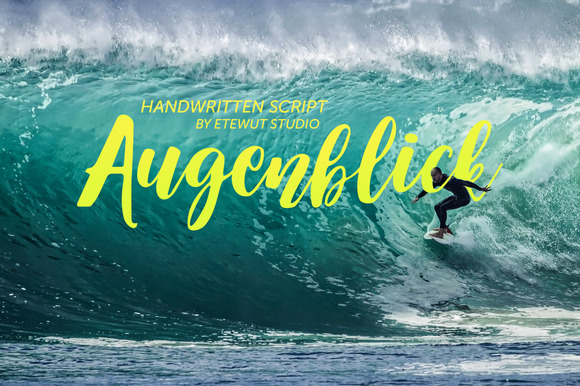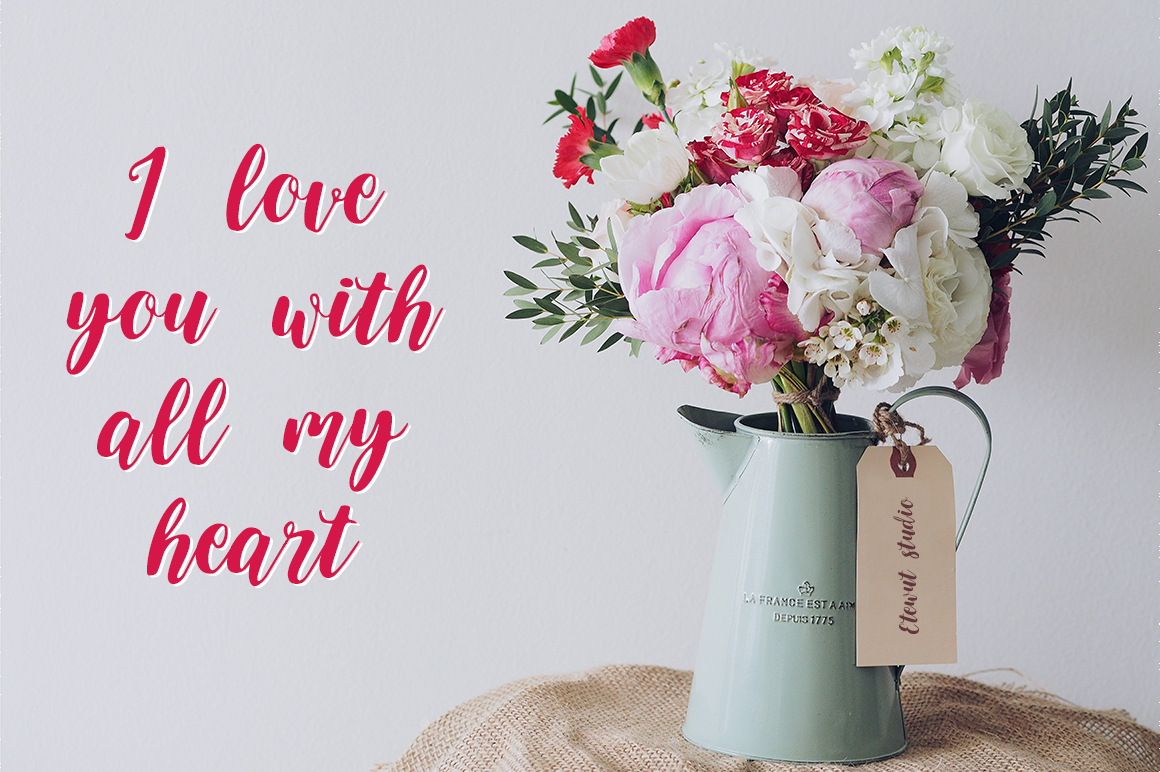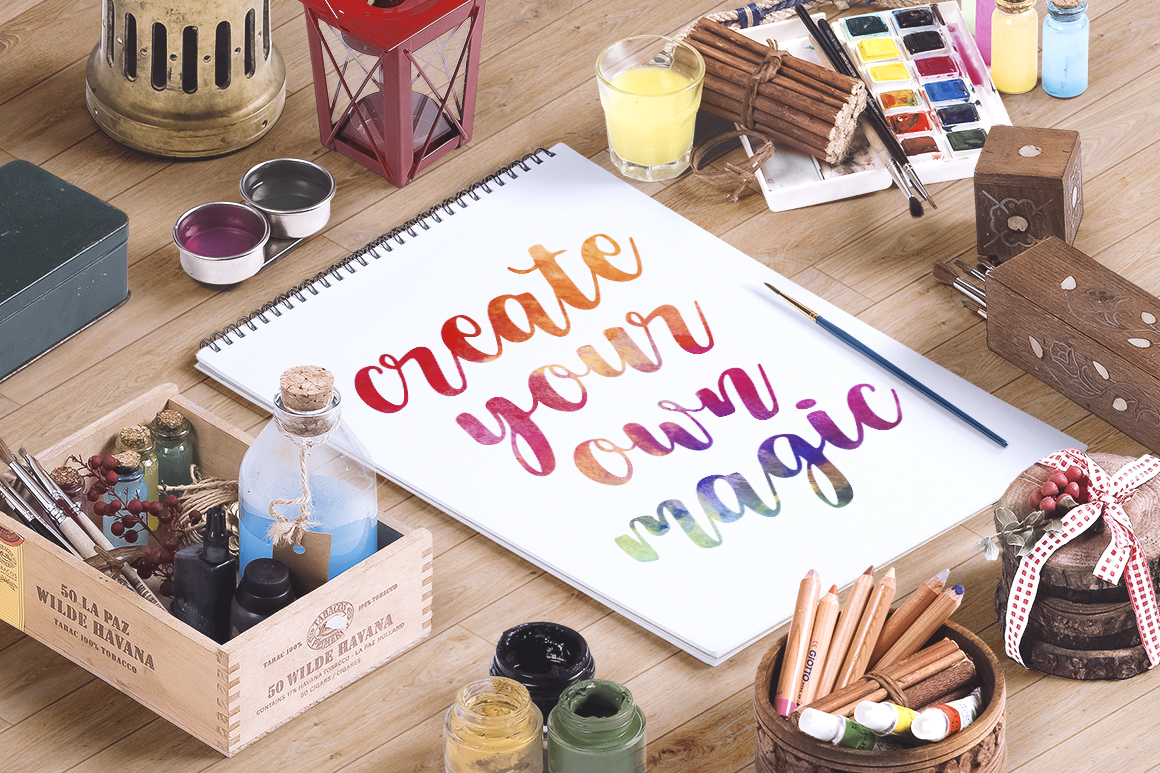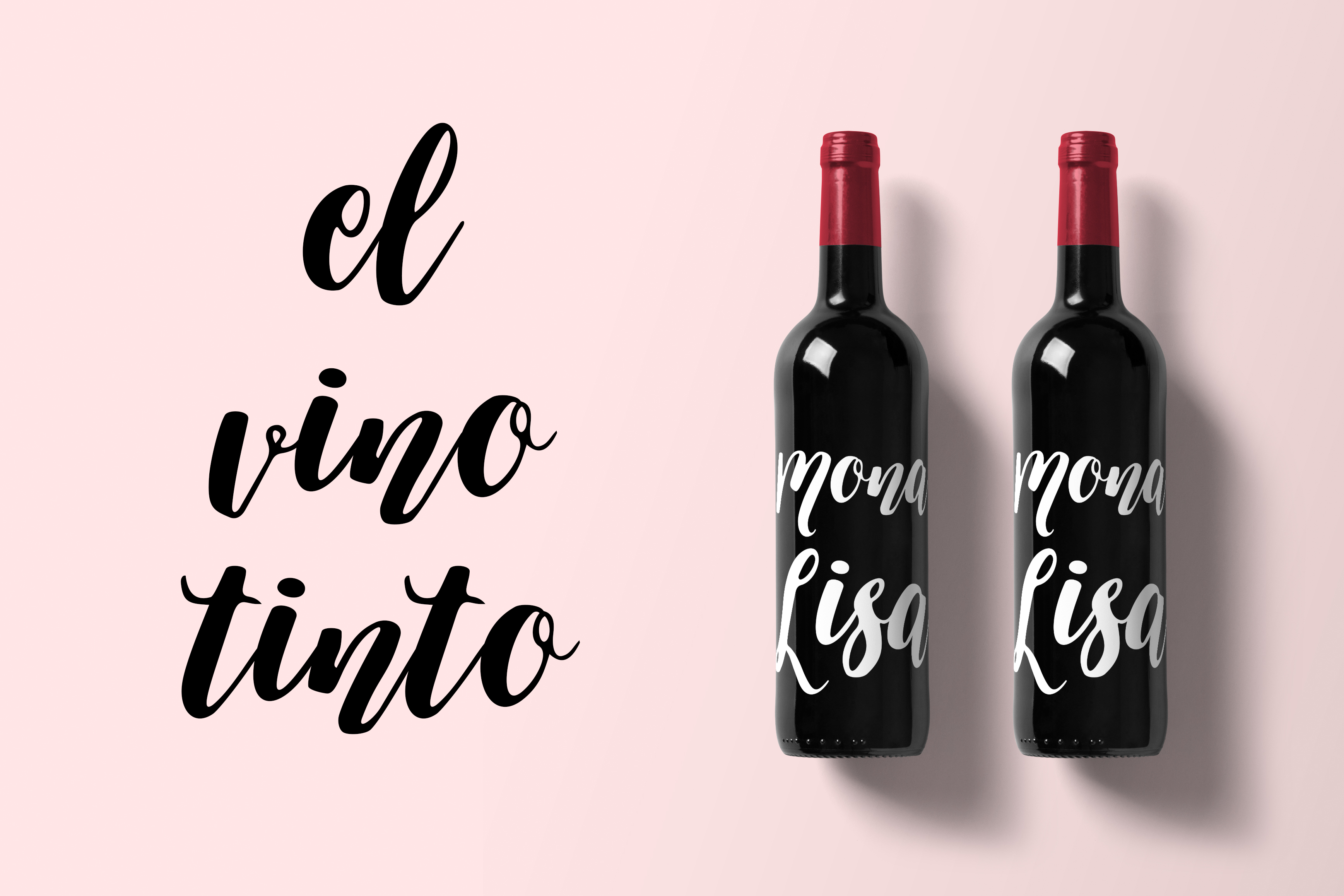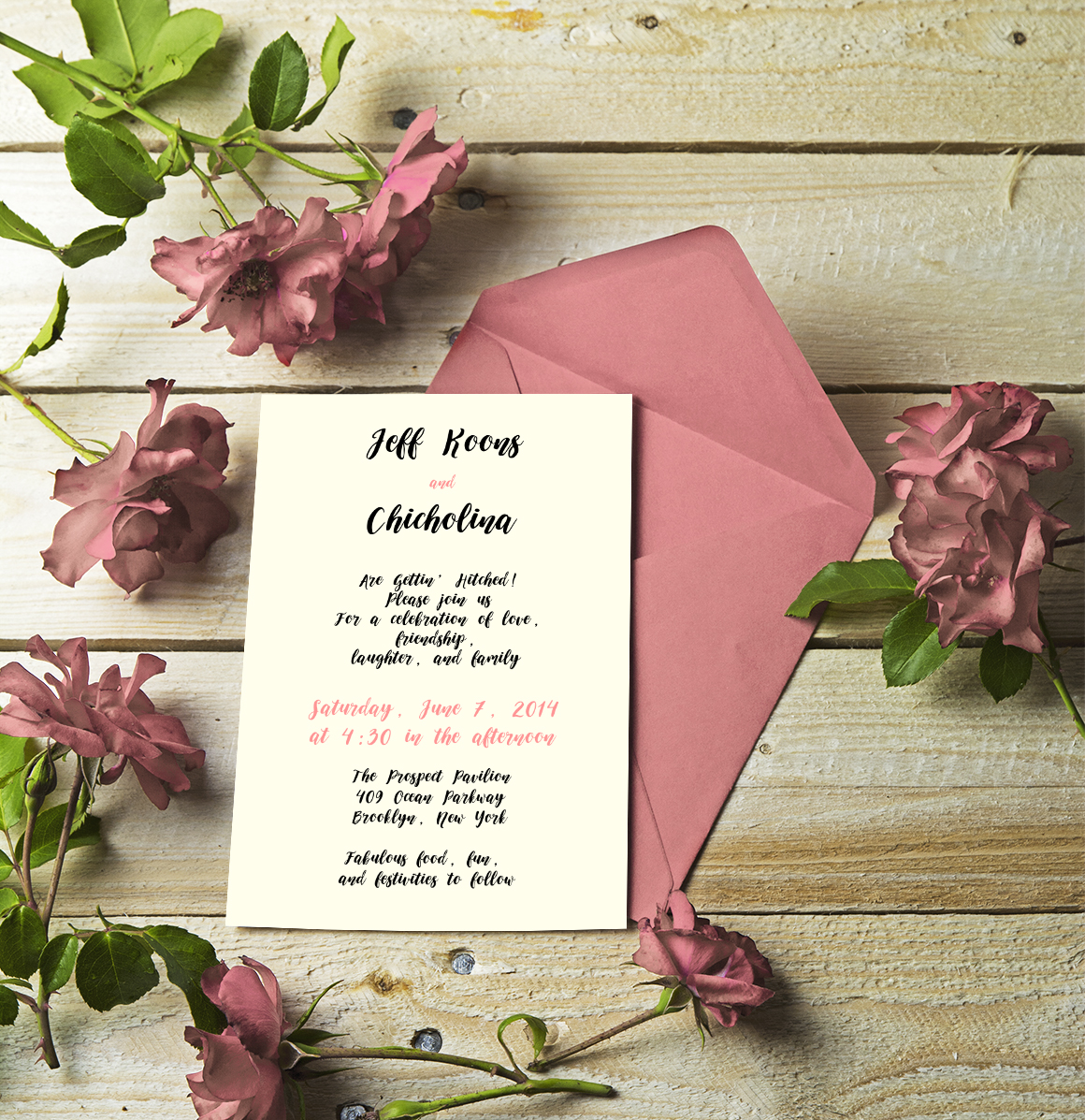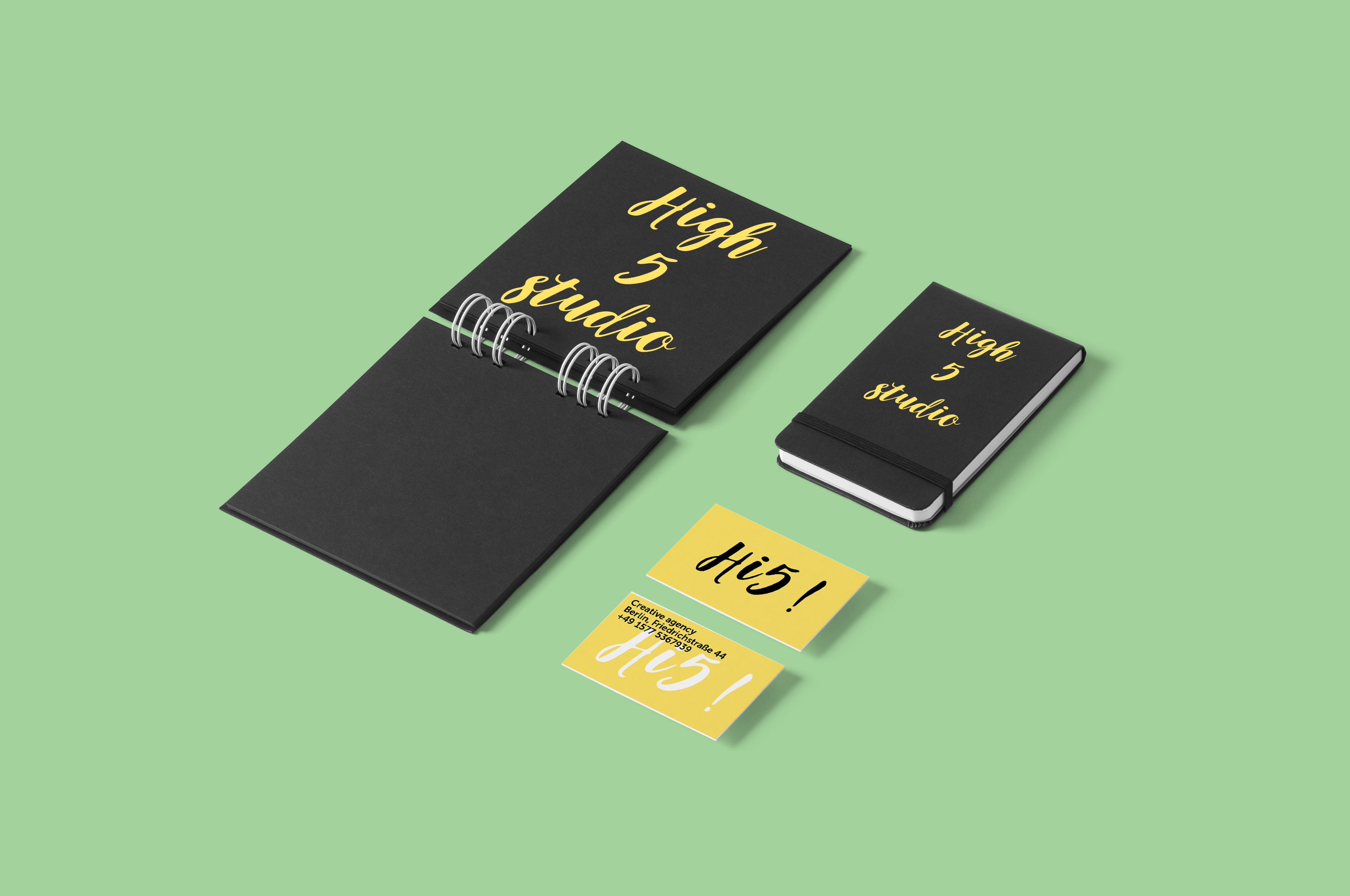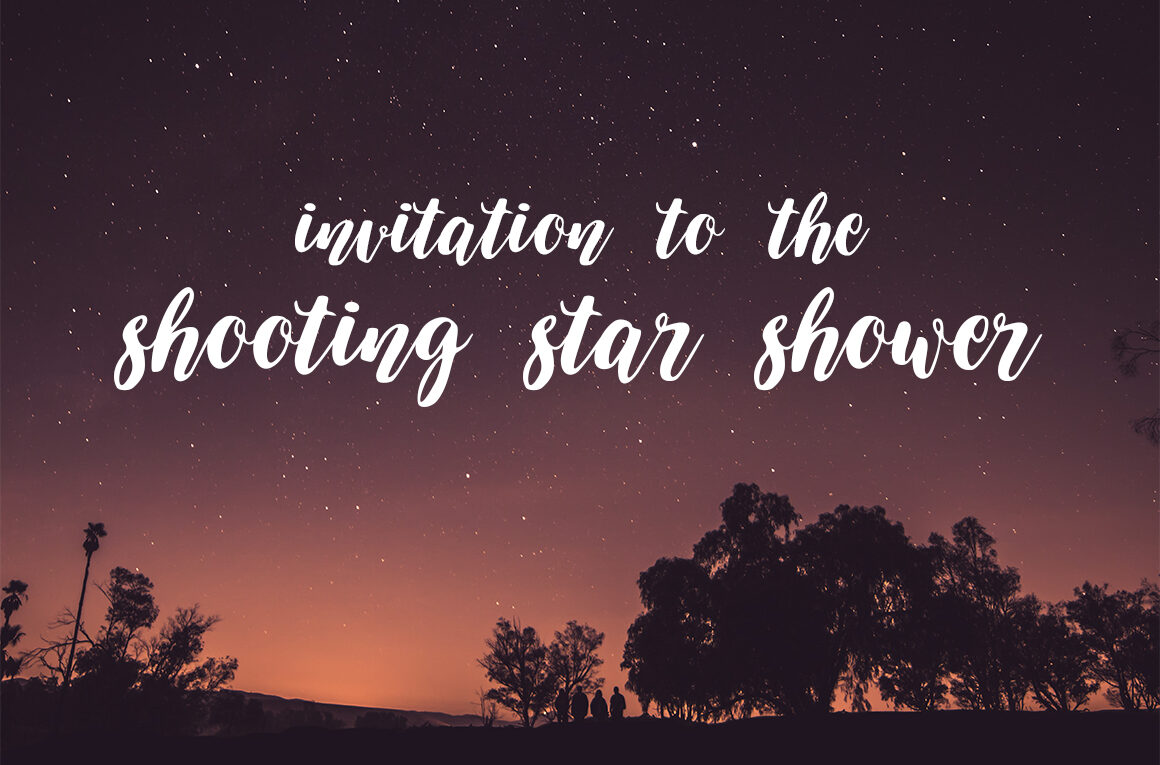
Introducing Augenblick Font: A Smooth Handwritten Delight
Are you on the hunt for a font that exudes elegance and sophistication? Look no further than Augenblick, a beautiful handwritten font crafted by the talented Etewut. In this article, we’ll dive into the world of Augenblick, exploring its features, uses, and what makes it a must-have for designers and crafters alike.
The Story Behind Augenblick
Augenblick is a German word that translates to “moment” or “instant” in English. This font’s name is a fitting reflection of its ability to capture the essence of a fleeting moment in time. Etewut, the creator of Augenblick, is a skilled font designer with a passion for crafting unique and visually stunning typefaces. With Augenblick, Etewut has outdone himself, creating a font that is both smooth and expressive.
Key Features of Augenblick Font
So, what makes Augenblick stand out from the crowd? Here are some of its key features:
- Smooth Handwritten Style: Augenblick boasts a fluid, handwritten aesthetic that is perfect for a wide range of design applications.
- Elegant Letterforms: Each letter in Augenblick is carefully crafted to exude elegance and sophistication.
- High Legibility: Despite its ornate nature, Augenblick remains highly legible, making it suitable for both headings and body text.
- Support for Multiple Languages: Augenblick supports a range of languages, including English, German, French, and more.
Uses for Augenblick Font
Augenblick is an incredibly versatile font that can be used in a variety of design contexts. Here are some ideas to get you started:
- Wedding Invitations and Stationery: Augenblick’s elegant style makes it perfect for wedding invitations, save-the-dates, and other stationery.
- Branding and Packaging: Use Augenblick to add a touch of sophistication to your brand’s packaging, labels, and marketing materials.
- Blogging and Web Design: Augenblick can add a personal touch to your blog or website, making it stand out from the crowd.
- Crafting and DIY Projects: Augenblick is a great font for crafters, suitable for use in handmade cards, scrapbooking, and other DIY projects.
Tips for Using Augenblick Font
To get the most out of Augenblick, here are some tips to keep in mind:
- Pair with a Sans-Serif Font: Combine Augenblick with a clean sans-serif font to create a striking contrast.
- Experiment with Font Sizes: Augenblick looks great in a range of font sizes, from large headings to smaller body text.
- Add a Personal Touch: Use Augenblick to add a personal touch to your designs, making them more relatable and engaging.
In conclusion, Augenblick is a stunning handwritten font that is sure to elevate your designs. With its smooth, elegant style and high legibility, it’s perfect for a wide range of applications. Whether you’re a designer, crafter, or DIY enthusiast, Augenblick is a must-have font that will help you create beautiful, professional-looking projects. So why wait? Download Augenblick today and experience the power of elegant typography for yourself!